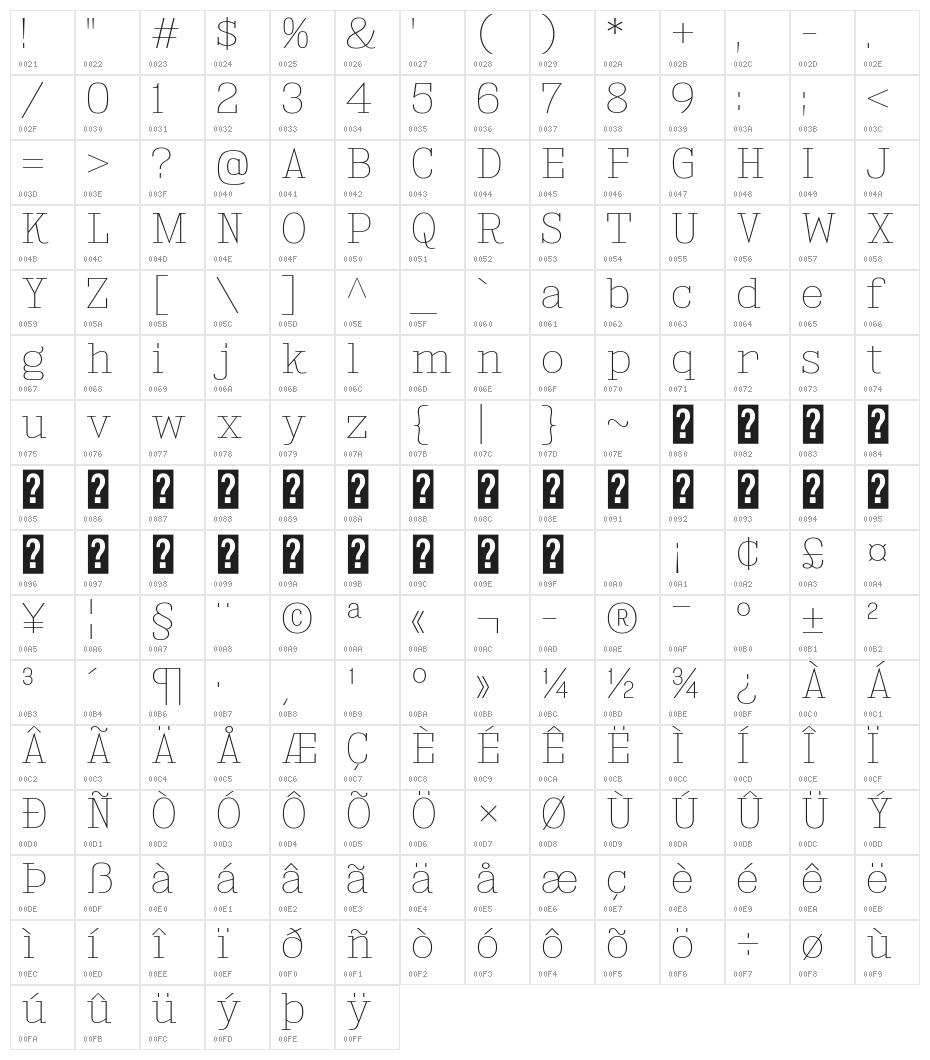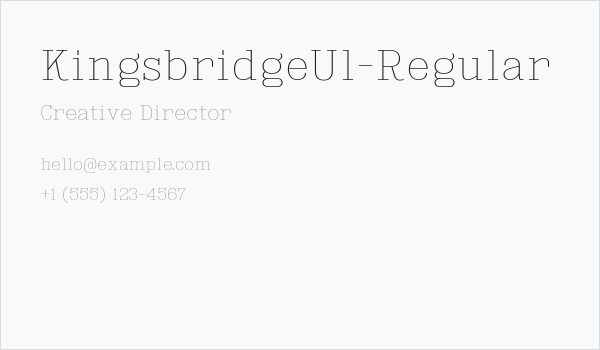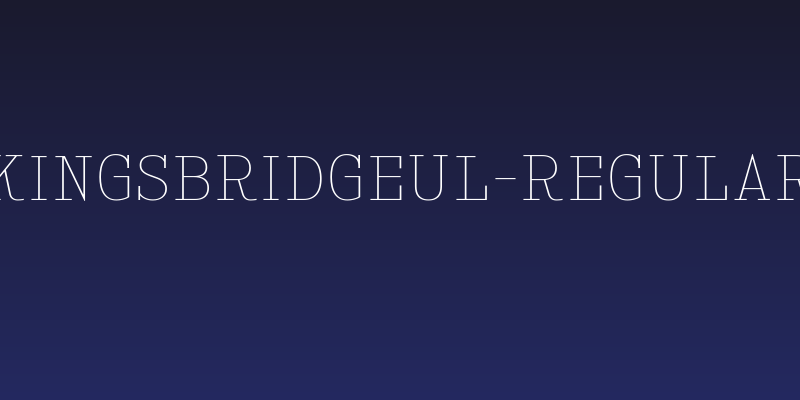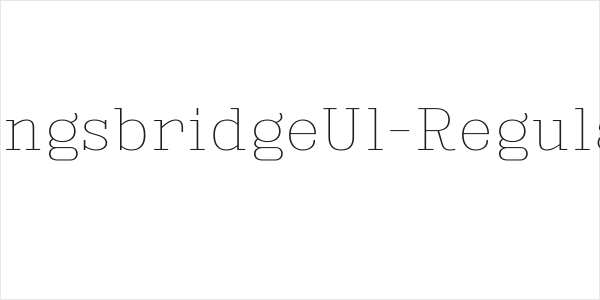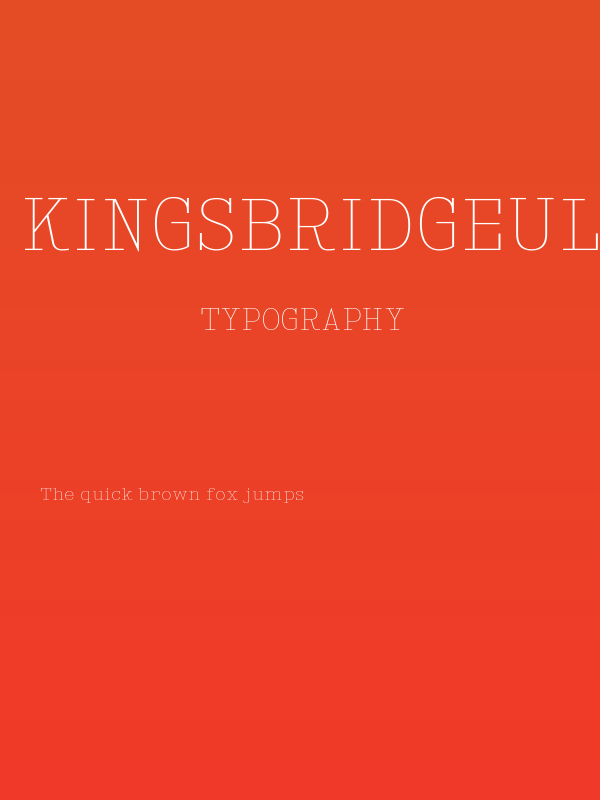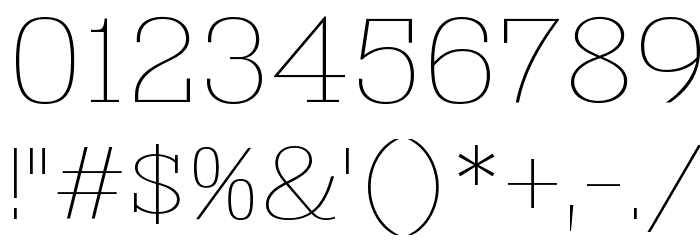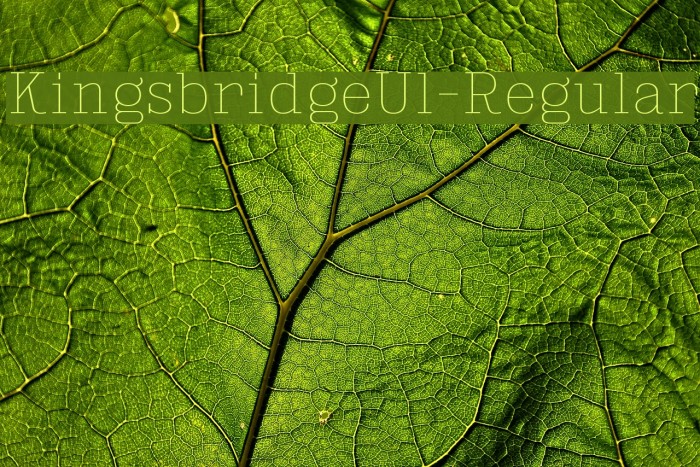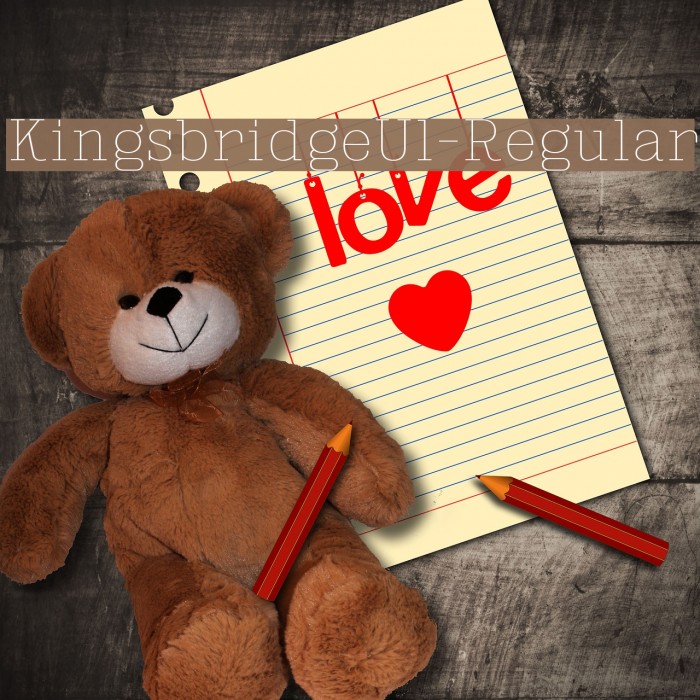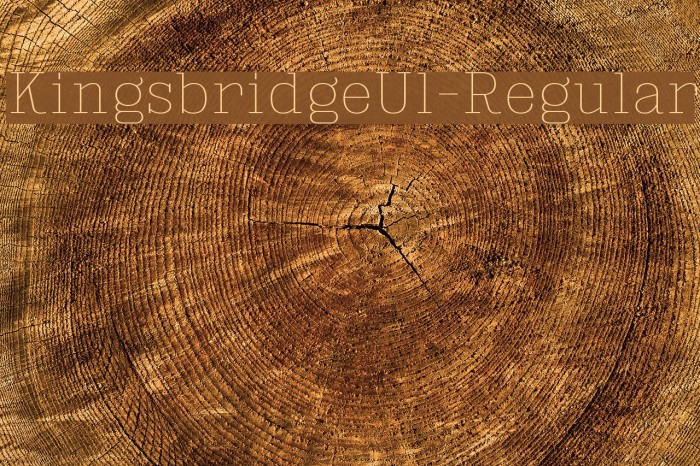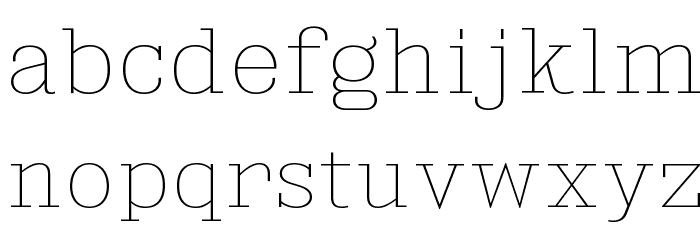
KingsbridgeUl-Regular Font
KingsbridgeUl-Regular Description
This font exhibits a refined and elegant serif style, characterized by its thin, elongated strokes and minimalistic design. The uppercase letters are tall and stately, while the lowercase letters maintain a consistent height, contributing to a harmonious appearance. The numerals are clear and easily distinguishable, with a modern touch that complements the overall aesthetic. Special characters are well-integrated, maintaining the font's clean and sophisticated look. The thin lines and open spacing give it a light and airy feel, making it suitable for a variety of design applications.